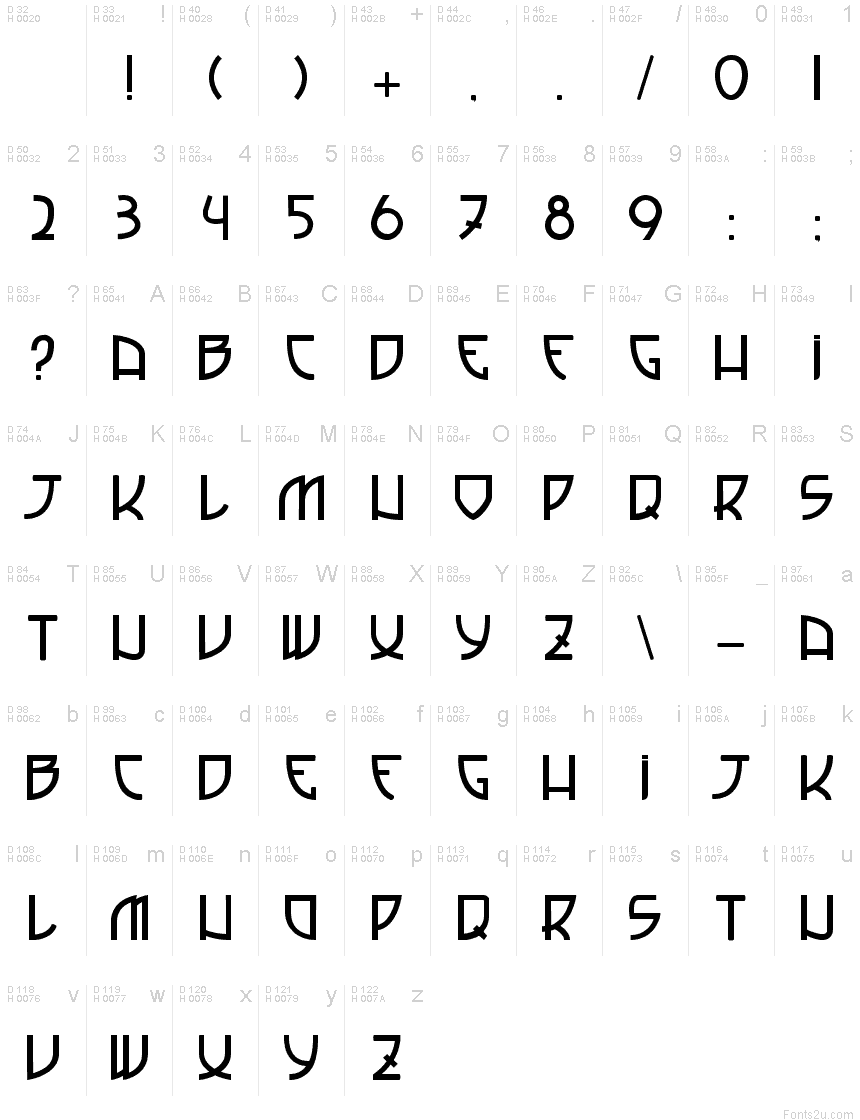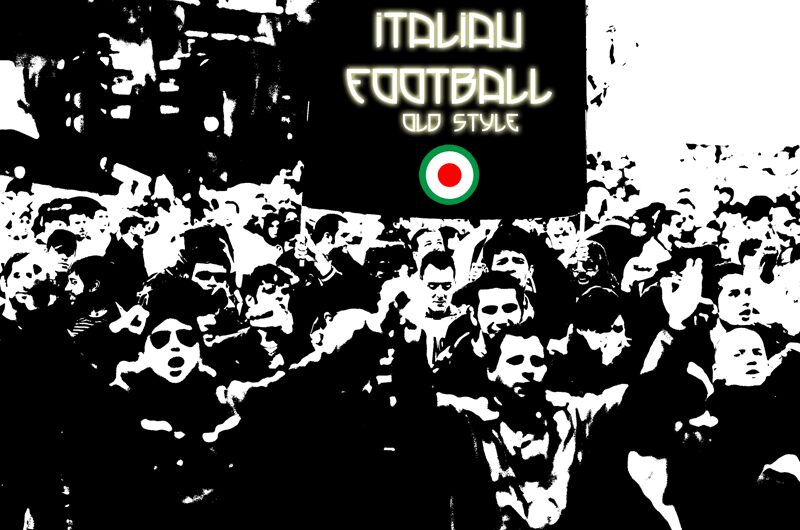
Italian FootballRegular
This typographical font was created to celebrate the victory of Italian football team at the World Cup 1934 played in Italy.
The lines and the constructions are retro and come from the style and the architecture of the 1930's years in Italy.